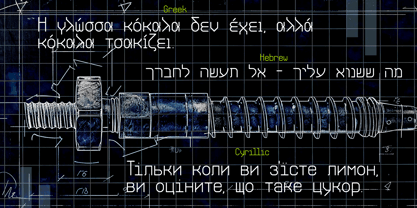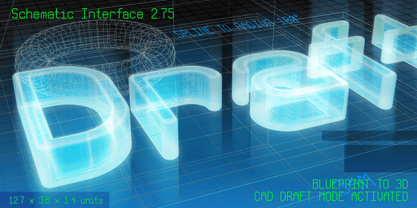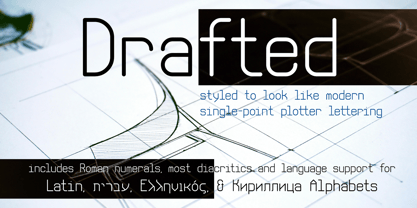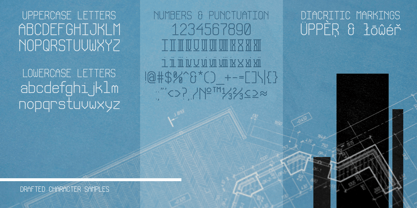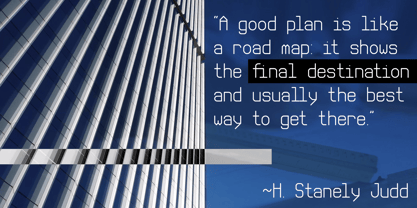
Drafted
by Essqué Productions
The Drafted Font Family was designed by Stephen M Knouse and published by Essqué Productions. Drafted contains 1 styles. More about this family
Inspired by the plotting and drafting table mechanical, monoline fonts but with less of a monospacing orientation. Can be used for technical drawings or other projects that require a more machine-like flavor.
Designers: Stephen M Knouse
Foundry: Essqué Productions